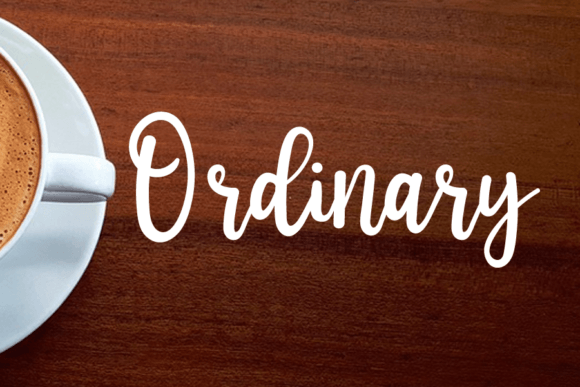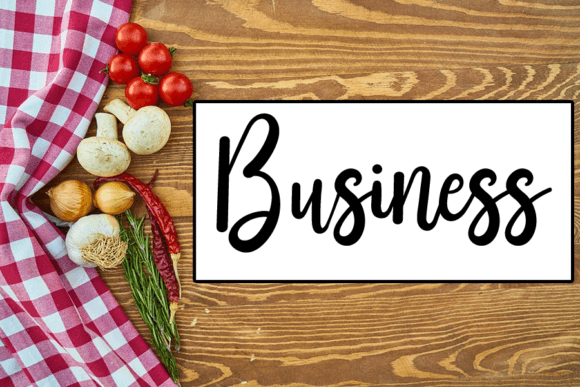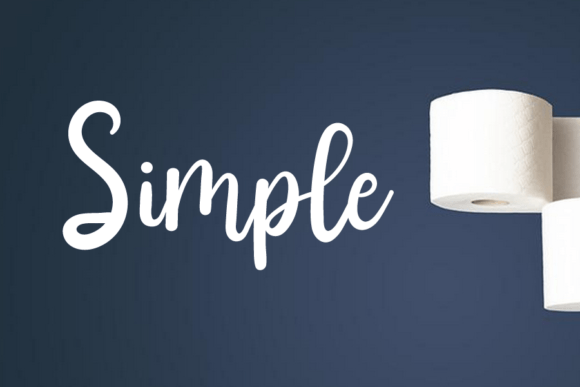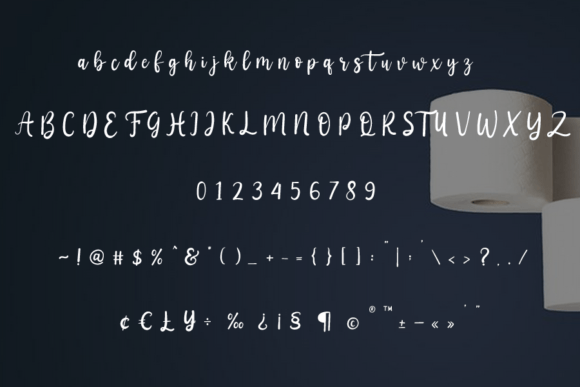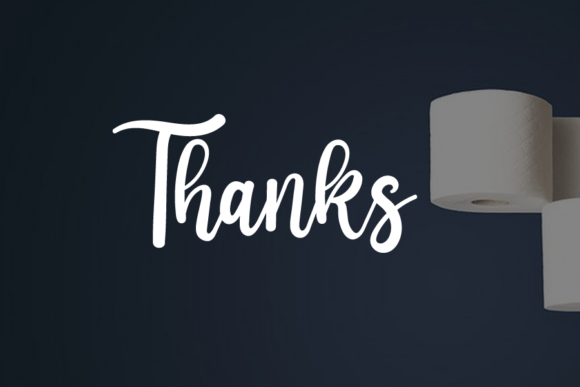
Introducing Breakfast Font: The Perfect Addition to Your Design Arsenal
Are you tired of using the same old fonts in your designs? Look no further than Breakfast Font, a unique and charming handwritten font that’s sure to make a stunning impact. With its round-lettered design and natural, romantic touch, Breakfast Font is perfect for adding a personal touch to your titles, invitations, letters, and more.
The Story Behind Breakfast Font
Breakfast Font was carefully crafted with designers and crafters in mind. The font’s creator aimed to create a typeface that would evoke a sense of warmth and coziness, reminiscent of a freshly baked breakfast treat. The result is a font that’s both elegant and approachable, making it perfect for a wide range of design applications.
Key Features of Breakfast Font
- Unique and Handwritten Design: Breakfast Font boasts a distinctive, handwritten design that’s sure to set your work apart from the crowd.
- Round-Lettered Style: The font’s round-lettered style gives it a soft, rounded feel that’s perfect for creating a romantic and whimsical atmosphere.
- Natural and Romantic Touch: Breakfast Font’s natural, organic feel makes it ideal for designs that require a personal and emotive touch.
- Versatile and Adaptable: Whether you’re designing a title, invitation, letter, or any other type of project, Breakfast Font is the perfect choice.
Uses for Breakfast Font
So, what can you use Breakfast Font for? The possibilities are endless! Here are a few ideas to get you started:
- Wedding Invitations: Add a touch of romance and whimsy to your wedding invitations with Breakfast Font.
- Branding and Packaging: Use Breakfast Font to create unique and eye-catching branding and packaging designs.
- Social Media Graphics: Add a personal touch to your social media graphics with Breakfast Font.
- Stationery and Cards: Create beautiful, handmade-style stationery and cards with Breakfast Font.
Tips for Using Breakfast Font
To get the most out of Breakfast Font, here are a few tips to keep in mind:
- Pair with Other Fonts: Experiment with pairing Breakfast Font with other fonts to create a unique and visually appealing design.
- Use in Combination with Images: Combine Breakfast Font with beautiful images to create stunning visual designs.
- Experiment with Colors: Try out different colors and color combinations to find the perfect look for your design.
In conclusion, Breakfast Font is a unique and charming handwritten font that’s perfect for designers and crafters looking to add a personal touch to their work. With its round-lettered design and natural, romantic touch, Breakfast Font is sure to make a stunning impact in any design application. So why wait? Download Breakfast Font today and start creating beautiful, eye-catching designs that will leave a lasting impression!